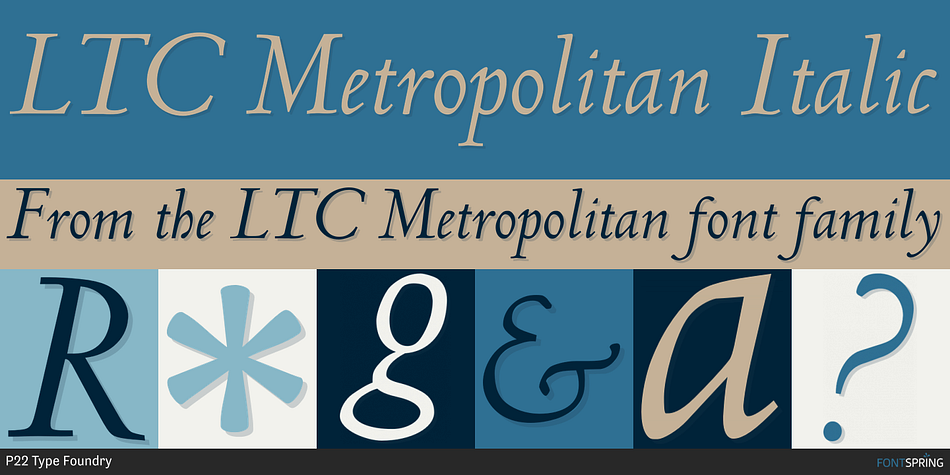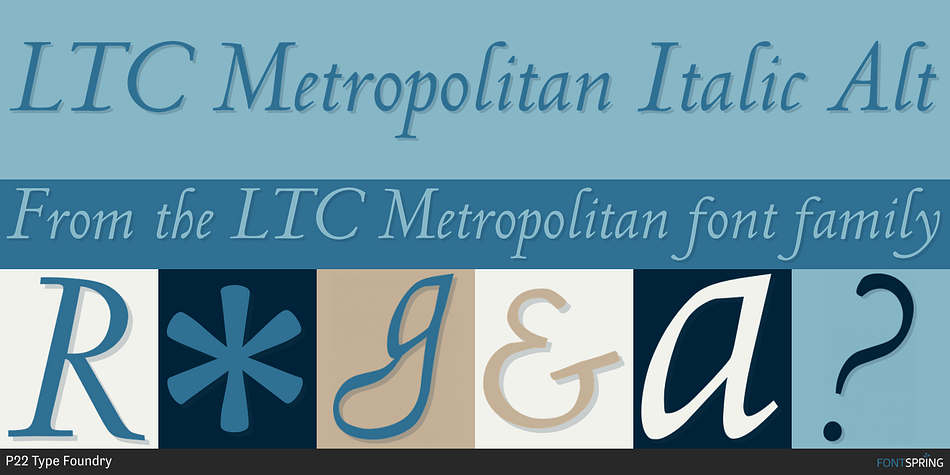
LTC Metropolitan
Designed by Bruce Rogers, LTC Metropolitan is a serif font family. This typeface has six styles and was published by P22 Type Foundry.
Metropolitan Roman was designed by Bruce Rogers in 1914 as “Centaur” based on Jenson’s classic roman font circa 1470. Metropolitan Italic Pro (Opentype) combines two of Frederic Wardes versions of Arrighi. The Metropolitan Italic font is based on the final (Monotype) version of Arrighi with sharp ascender serifs that extend to the left. Metropolitan Italic Alt is based on the original Arrighi of 1925 and features pear shaped ascenders that extend to the right.
New small cap versions added in mid 2006.